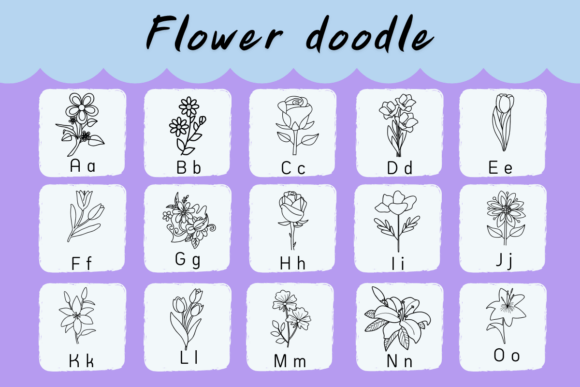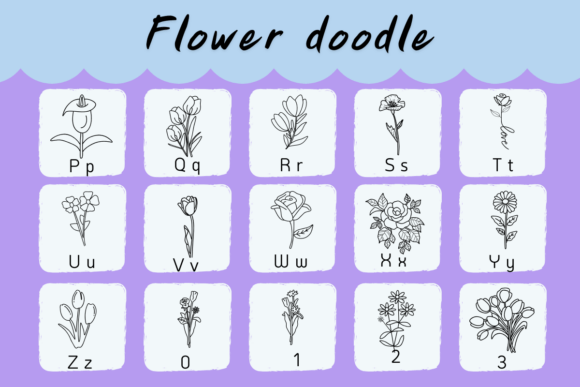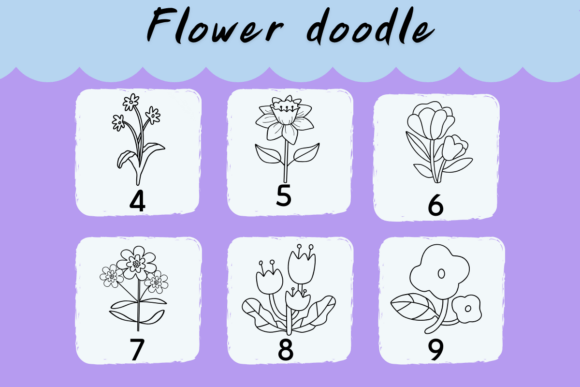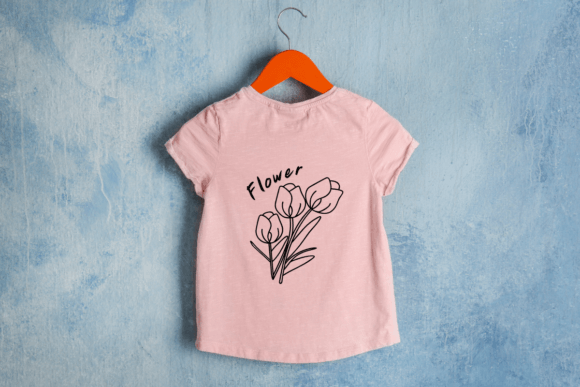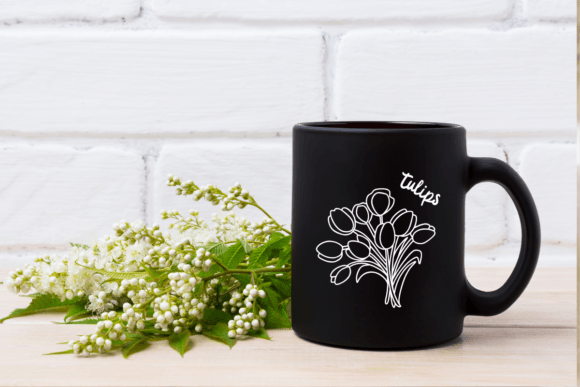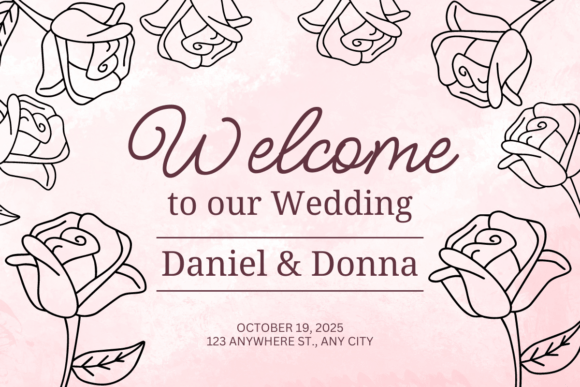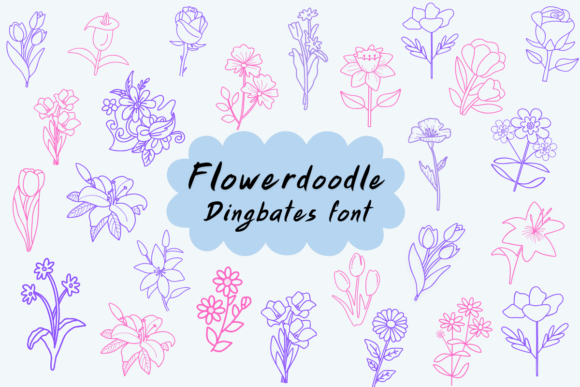
Introducing Flower Doodle Font: Add a Touch of Nature to Your Designs
Are you looking for a unique and playful way to add some charm to your designs? Look no further than the Flower Doodle Font! This delightful dingbat font is made up of cute, hand-drawn flower designs that are sure to bring a touch of nature and whimsy to your projects.
What is Flower Doodle Font?
Flower Doodle is a playful dingbat font that features simple, fun flower shapes as each character. This font is perfect for designers, crafters, and anyone looking to add a personal touch to their work. Whether you’re creating greeting cards, invitations, or social media graphics, Flower Doodle Font is sure to make your designs stand out.
Key Features of Flower Doodle Font
- Hand-drawn designs: Each character in the Flower Doodle Font is carefully hand-drawn to ensure a unique and playful look.
- Cute and charming: The flower designs are simple, yet adorable, making them perfect for a variety of design projects.
- Dingbat font: Flower Doodle Font is a dingbat font, which means each character is a graphical symbol rather than a traditional letter or number.
- Easily scalable: The font is designed to be easily scalable, so you can use it for a variety of projects, from small icons to large posters.
Uses for Flower Doodle Font
Flower Doodle Font is versatile and can be used for a wide range of design projects, including:
- Greeting cards: Add a touch of nature and charm to your greeting cards with Flower Doodle Font.
- Invitations: Use the font to create beautiful and unique invitations for weddings, parties, and other events.
- Social media graphics: Add some personality to your social media graphics with Flower Doodle Font.
- Stationery: Use the font to create custom stationery, such as notebooks, journals, and letterheads.
- Crafting projects: Flower Doodle Font is perfect for crafters who want to add a personal touch to their projects, such as scrapbooking, sewing, and paper crafting.
Tips for Using Flower Doodle Font
Here are some tips for getting the most out of Flower Doodle Font:
- Experiment with colors: Try using different colors and patterns to add depth and interest to your designs.
- Mix and match: Combine Flower Doodle Font with other fonts and graphics to create unique and eye-catching designs.
- Use it sparingly: Use Flower Doodle Font sparingly to add a touch of whimsy to your designs, rather than overwhelming them with too many flowers.
Flower Doodle Font is a playful and charming dingbat font that is perfect for designers, crafters, and anyone looking to add a touch of nature and whimsy to their projects. With its hand-drawn flower designs and easily scalable characters, Flower Doodle Font is versatile and can be used for a wide range of design projects. So why not give it a try and see how you can use Flower Doodle Font to add some charm to your designs?